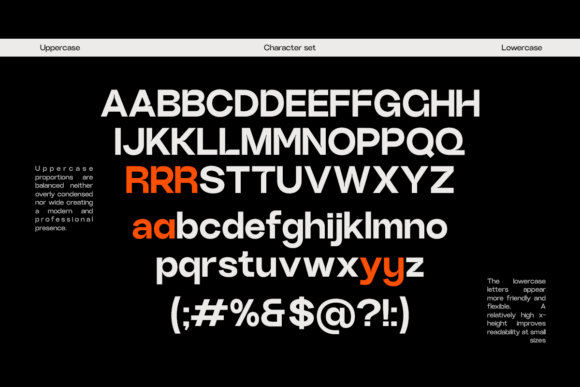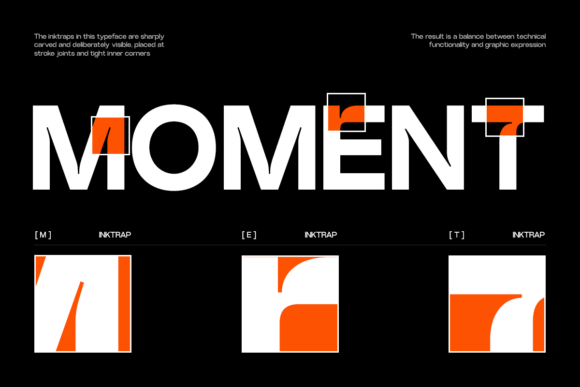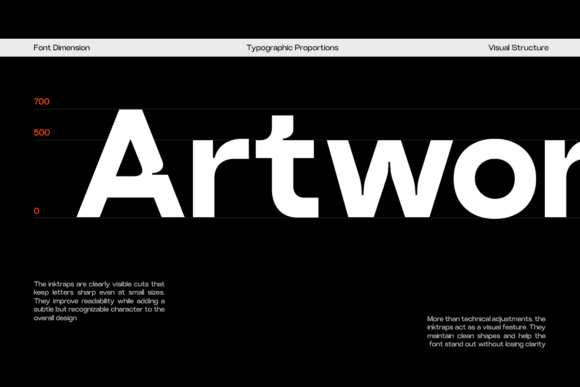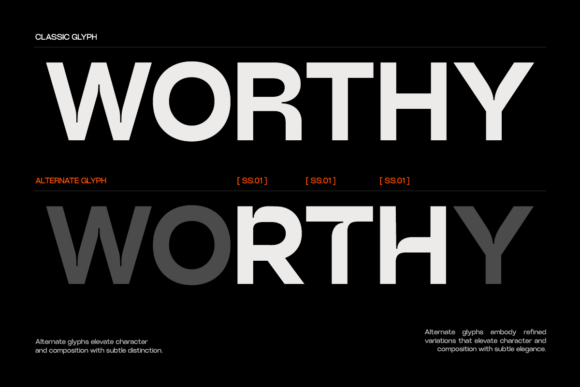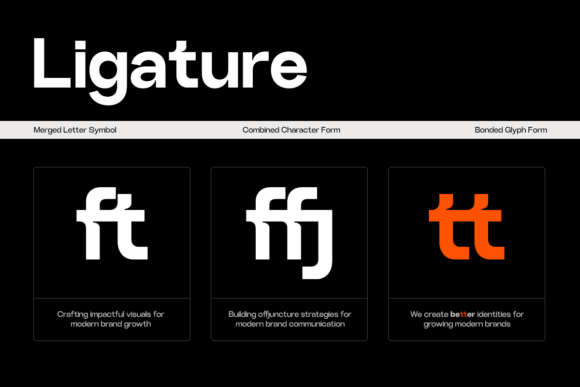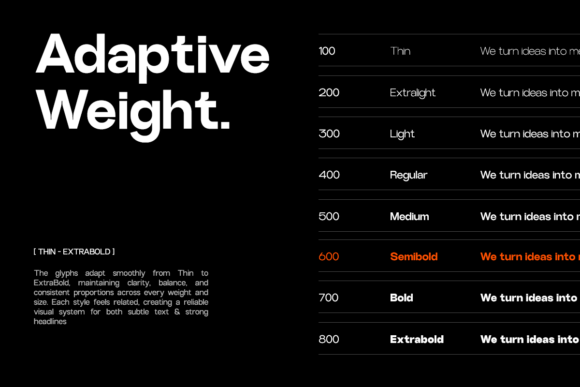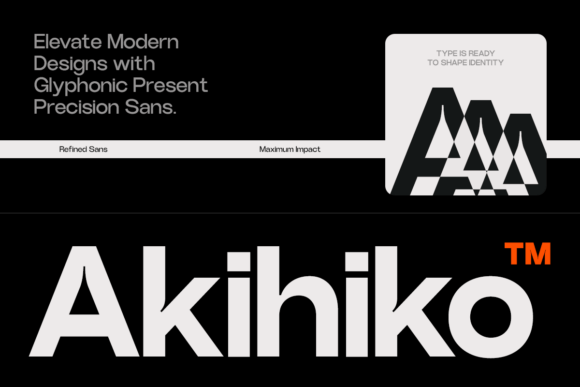
Akihiko Font: Elevate Your Typography with Precision and Elegance
In the realm of typography, a font can make or break the visual identity of a brand, product, or editorial piece. Akihiko, a contemporary sans serif typeface, has been meticulously crafted to deliver clarity, control, and a confident typographic voice. Designed with refined geometry and a precise modern structure, Akihiko is poised to revolutionize high-end visual communication.
The Design Philosophy Behind Akihiko
Akihiko’s design is rooted in the principles of clarity and alignment, making it an ideal choice for a wide range of applications, including branding systems, editorial layouts, modern interfaces, and corporate design. The font’s creator aimed to craft a typeface that not only exudes elegance but also brings a sense of precision and control to typography.
With Akihiko, every detail has been carefully considered to ensure that the font delivers a clean and confident visual message. Its refined geometry and modern structure enable it to convey a sense of sophistication and poise, making it perfect for high-end visual communication.
Key Features of Akihiko Font
- Contemporary Sans Serif Design: Akihiko boasts a sleek and modern sans serif design that is both elegant and approachable.
- Refined Geometry: The font’s geometric structure has been meticulously refined to ensure precision and clarity.
- Precise Modern Structure: Akihiko’s modern structure allows it to adapt seamlessly to a wide range of typographic applications.
- Clean and Confident Typographic Voice: The font’s design ensures that it communicates with clarity and confidence, making it perfect for high-end visual communication.
Applications of Akihiko Font
Akihiko’s versatility makes it an excellent choice for various design applications, including:
- Branding Systems: Akihiko’s elegant and precise design makes it an ideal choice for branding systems that require a sophisticated typographic voice.
- Editorial Layouts: The font’s clean and confident design ensures that editorial layouts are both visually appealing and easy to read.
- Modern Interfaces: Akihiko’s modern structure and refined geometry make it perfect for use in modern interfaces, such as mobile apps and websites.
- Corporate Design: The font’s professional and elegant design makes it an excellent choice for corporate design applications, such as annual reports, brochures, and letterheads.
Using Akihiko for Impactful Headlines and Clean Layouts
Akihiko’s design ensures that it can be used to create impactful headlines and clean layouts that command attention and convey a sense of sophistication. Its precise modern structure and refined geometry enable it to bring a sense of elegance and poise to typography.
Whether used for headlines, subheadings, or body copy, Akihiko brings a sense of precision and control to typography. Its clean and confident design ensures that your message is communicated with clarity and elegance, making it perfect for designers and crafters who demand the best.
In conclusion, Akihiko is a game-changing font that is poised to revolutionize high-end visual communication. Its refined geometry, precise modern structure, and clean typographic voice make it an ideal choice for designers and crafters who demand precision, elegance, and maximum visual impact.
Whether you’re working on a branding system, editorial layout, modern interface, or corporate design project, Akihiko is the perfect choice. Its versatility, elegance, and precision ensure that your typography is always on point, conveying a sense of sophistication and poise that commands attention.
Discover the power of Akihiko and elevate your typography to new heights. Experience the precision, elegance, and maximum visual impact that this contemporary sans serif typeface has to offer.